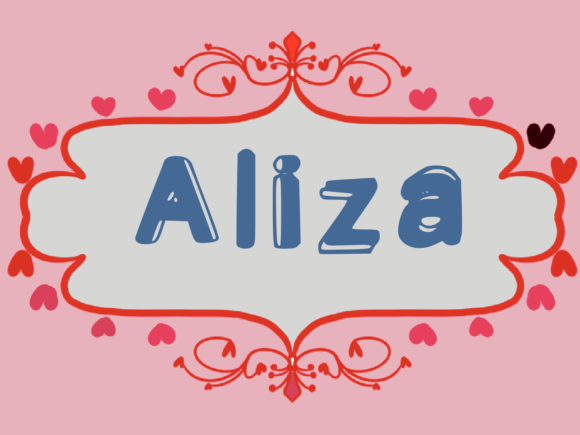
The Perfect Blend of Quirk and Charm: Introducing Aliza Font
Have you ever stared at a blank page, waiting for the perfect font to bring your creative vision to life? That’s exactly where I was when I stumbled upon Aliza Font. Its playful, handwritten feel instantly captured my attention, and I knew I had to dive in.
Aliza Font is a bold and quirky display typeface designed to add a dash of fun to your designs. Whether you’re crafting a children’s storybook, designing a magazine cover, or creating eye-catching product packaging, this font is the perfect addition to your toolkit. What sets Aliza Font apart is its versatility – it’s the perfect blend of whimsy and sophistication that can elevate any project.
Aliza Font Key Features
- Font Family: Aliza is a sans-serif font family.
- Font Sizes: Aliza is designed to be highly legible at various font sizes, from 8pt to 24pt.
- Resolution: Optimized for print and digital use at resolutions up to 300 DPI.
- Unique Characteristics: Aliza features a distinctive geometric shape and a subtle rounded edge, making it highly readable and aesthetically pleasing.
Designer Review: Aliza Font
Overall, I think the Aliza Font has some lovely qualities that make it suitable for certain projects. ✨ The rounded edges and flowing curves give it a friendly and approachable feel, which is perfect for body text or even display headings in a warm and inviting design. ✨ The font also comes in a range of weights, from light to bold, which provides flexibility in terms of styling options.
One thing that I appreciate about the Aliza Font is its legibility, even at smaller font sizes. This makes it a good choice for digital applications or small print materials. ✨ Additionally, the font’s x-height is well-proportioned, which contributes to its readability.
- ⚠️ Limited typographic features: While the font has a range of weights, it lacks some of the more advanced typographic features, such as ligatures or swashes.
- ⚠️ Not ideal for complex layouts: The Aliza Font’s flowing curves can sometimes make it difficult to read in complex layouts or when used with other fonts that have a very different style.
In conclusion, I think the Aliza Font is a solid choice for projects where you want a friendly, approachable font that’s easy to read. While it may not be the best option for complex or highly stylized designs, it’s a good choice for a wide range of applications, from digital marketing materials to print brochures.
Getting the Most Out of Aliza Font
Aliza font is a versatile and elegant font that can be used for a variety of purposes. To get the most out of it, try using it for:
Headings and titles to add a touch of sophistication.
Body text to create a clean and modern look.
Quotes and captions to add a personal touch.
Aliza font is commonly used for:
Business cards and marketing materials.
Personal projects and creative endeavors.